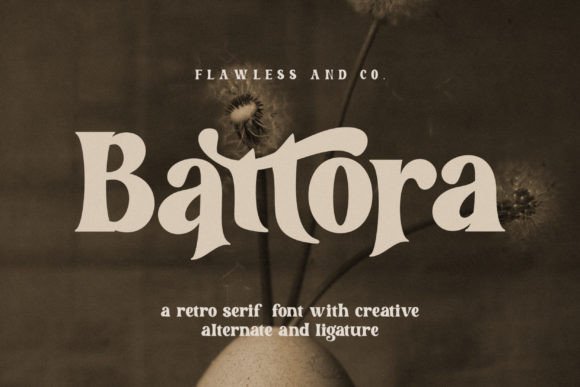
Prepare yourself to be awestruck by the Battora Font, an exceptional creation from the masterminds at Flawless And Co. This display font will enchant you with its stylish demeanor and elegant charm, promising to bring an air of sophistication and fashion to your design endeavors. Dive into a world where typography takes center stage, and let Battora's captivating aura ignite your creativity.
With Battora as your artistic ally, possibilities are limitless. Its versatility transcends boundaries, allowing it to seamlessly adapt to an array of design concepts. Whether you're crafting captivating logos, designing breathtaking posters, or weaving enchanting invitations, Battora will effortlessly elevate your creations to new heights.
As you embark on your design journey with Battora, prepare to witness the transformation of ordinary text into captivating masterpieces. Its meticulously crafted characters dance harmoniously on the digital canvas, captivating the eyes and igniting imaginations. With Battora, you hold the power to orchestrate a visual symphony that will leave an indelible mark on your audience.
But Battora is more than just a font; it's an experience. Immerse yourself in its exquisite curves and intricate details, feeling the passion and dedication poured into its creation. Every stroke, every serif, every subtle nuance is a testament to the artistic vision behind this extraordinary typeface.
So, why settle for ordinary when you can embrace the extraordinary? Unleash the power of Battora Font and watch as your designs blossom into stunning works of art. Embrace the allure of sophistication, the allure of elegance, and the sheer joy of creating with a font that truly inspires.